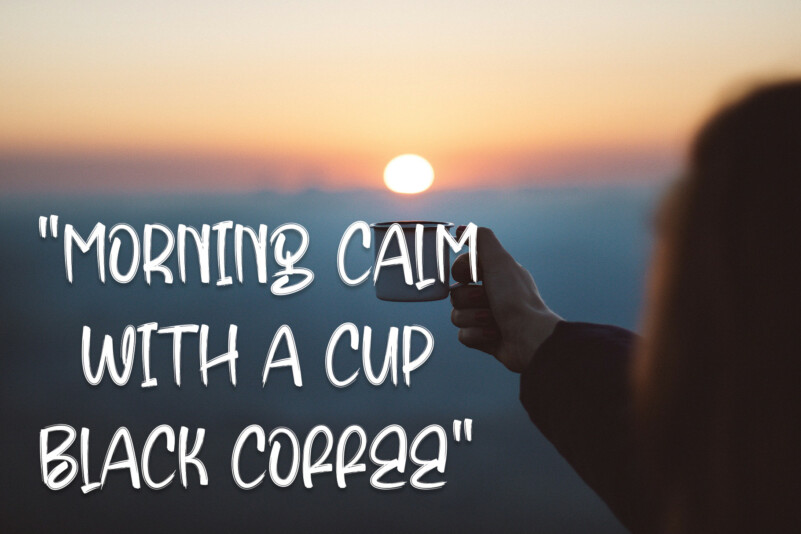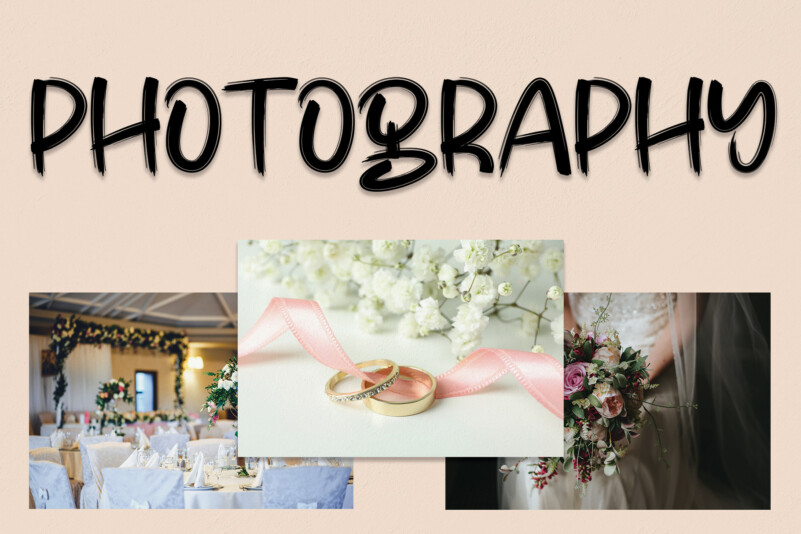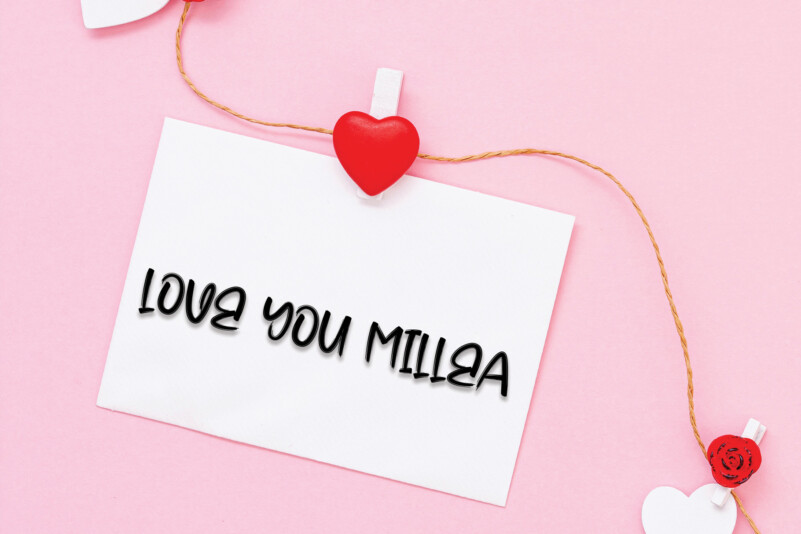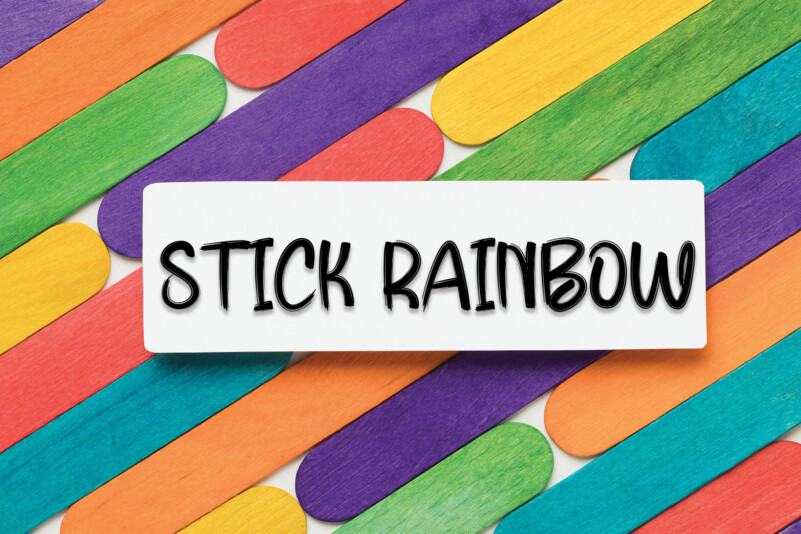
Winter Bonfire Brush Font
Winter Bonfire Brush Font is a bold and unique handwritten font. Its latest style letters are perfect for wall displays, wedding invitations, social media posts, logos, advertisements, product packaging, product designs, labels, photography, watermarks, invitations, stationery, and any project that requires a handwritten taste.